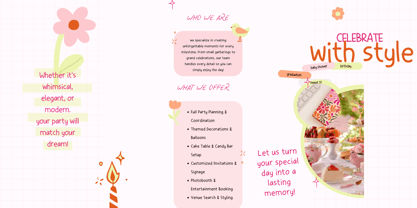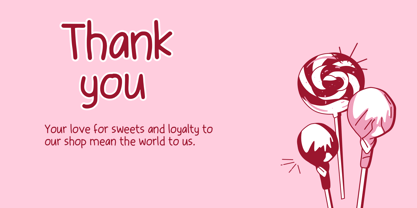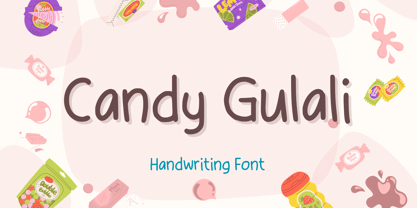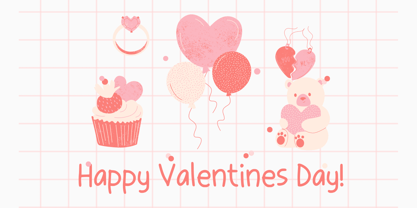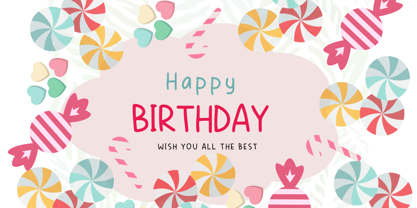
Candy Gulali
by Aisyah
The Candy Gulali Font Family was designed by Nur Aiysah Amalia and published by Aisyah. Candy Gulali contains 1 styles. More about this family
Candy Gulali is a sweet and charming handwritten font with a playful yet elegant touch. Its smooth, friendly letterforms make it comfortable for long text while adding a personal and creative feel to every project. Perfect for invitations, greeting cards, stationery, crafts, branding, packaging, social media, and business projects. Whether you’re creating something cute, elegant, or uniquely personal, Candy Gulali brings a warm handwritten touch to your designs.
Designers: Nur Aiysah Amalia
Foundry: Aisyah